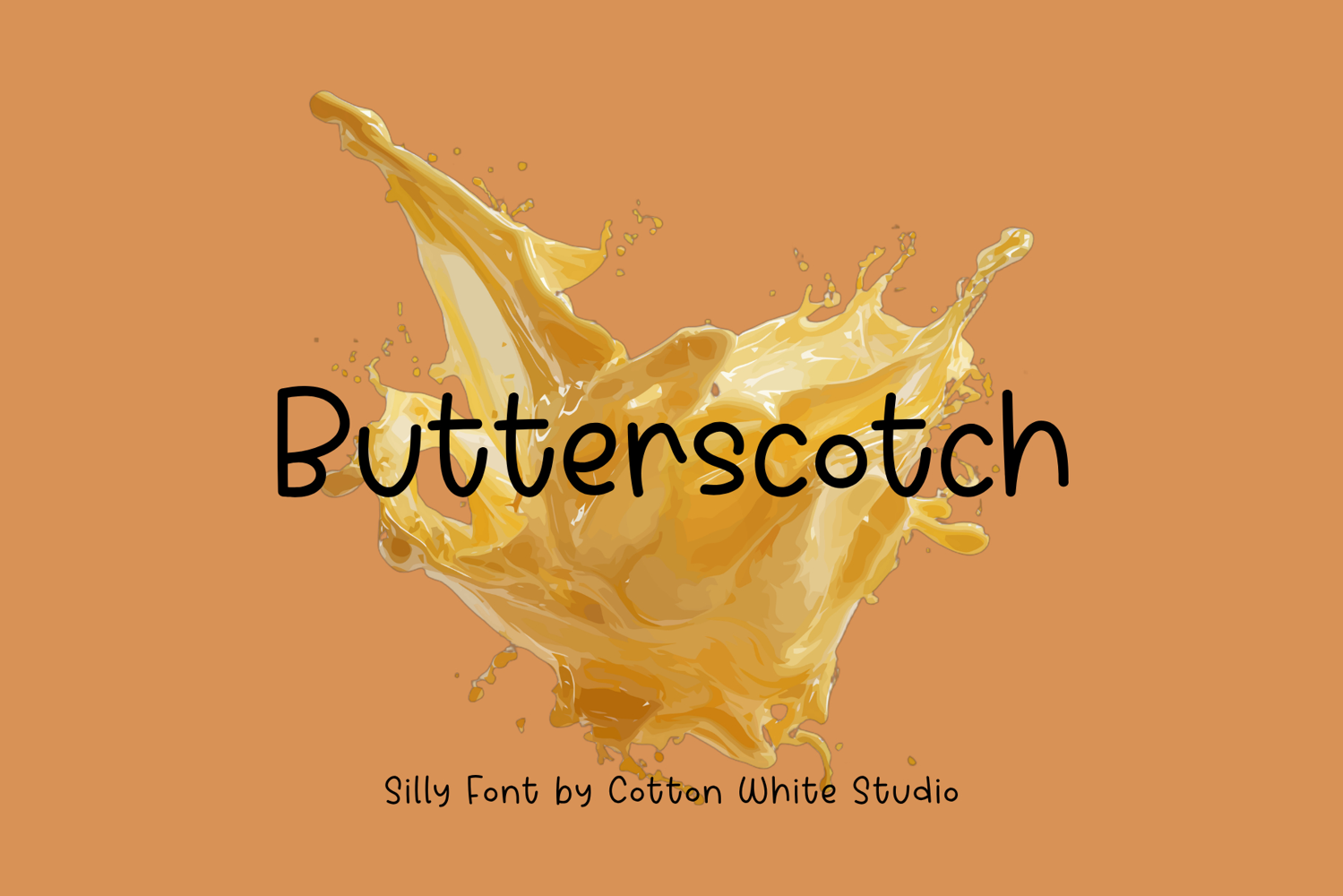
Butterscotch
Meet Butterscotch, a sweet and playful handwritten font designed to bring warmth and personality to your creative projects. With its clean letterforms, casual handwritten style, and friendly character, this font is perfect for designs that feel both fun and approachable. Whether you're creating logos, children's products, classroom resources, invitations, social media graphics, mugs, signs, stickers, or Cricut projects, Butterscotch adds a charming handmade touch while remaining easy to read.
Butterscotch